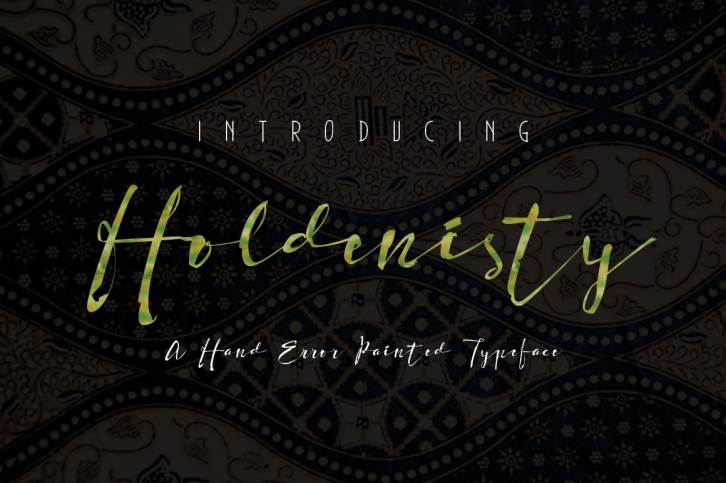
Holdenisty Typeface is a beautiful font that was designed by BeeArt. It's a great choice for designers and creatives who need such a font. It was released on April 30, 2016 and the file size is 2.84 MB. Holdenisty Typeface may give a more youthful, expressive and casual look to your project. It is a very beautiful, refined, elegant, and high-quality font.